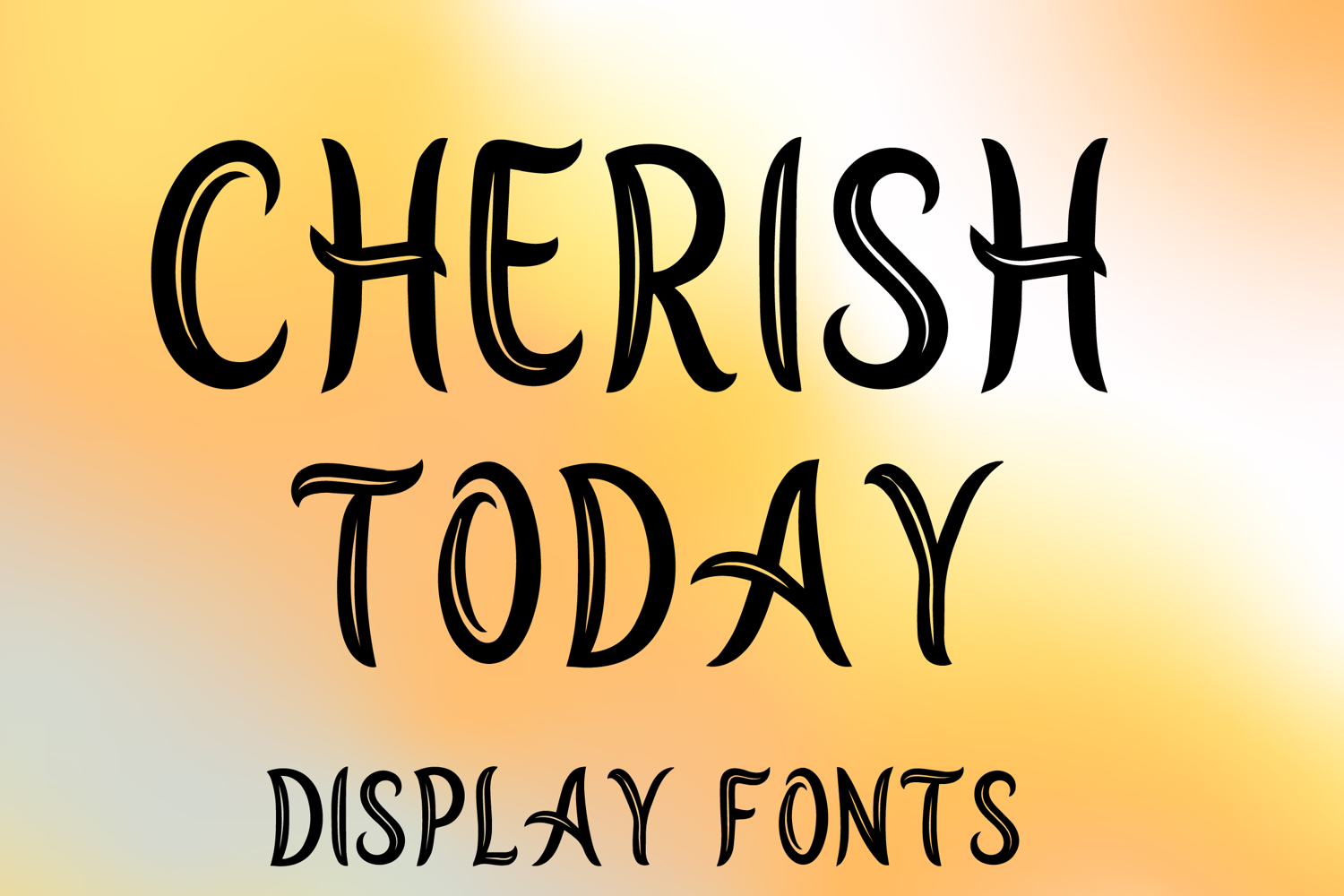
CHERISH TODAY
CHERISH TODAY is a whimsical decorative display font with a graceful handcrafted style and elegant artistic charm. Its uppercase letterforms feature flowing curves, slender strokes, and subtle ornamental details that create a warm, dreamy, and eye-catching look. Designed with uppercase letters A–Z and numbers 0–9, CHERISH TODAY is perfect for branding, posters, packaging, invitations, logos, social media graphics, and creative projects that need a stylish and memorable statement.